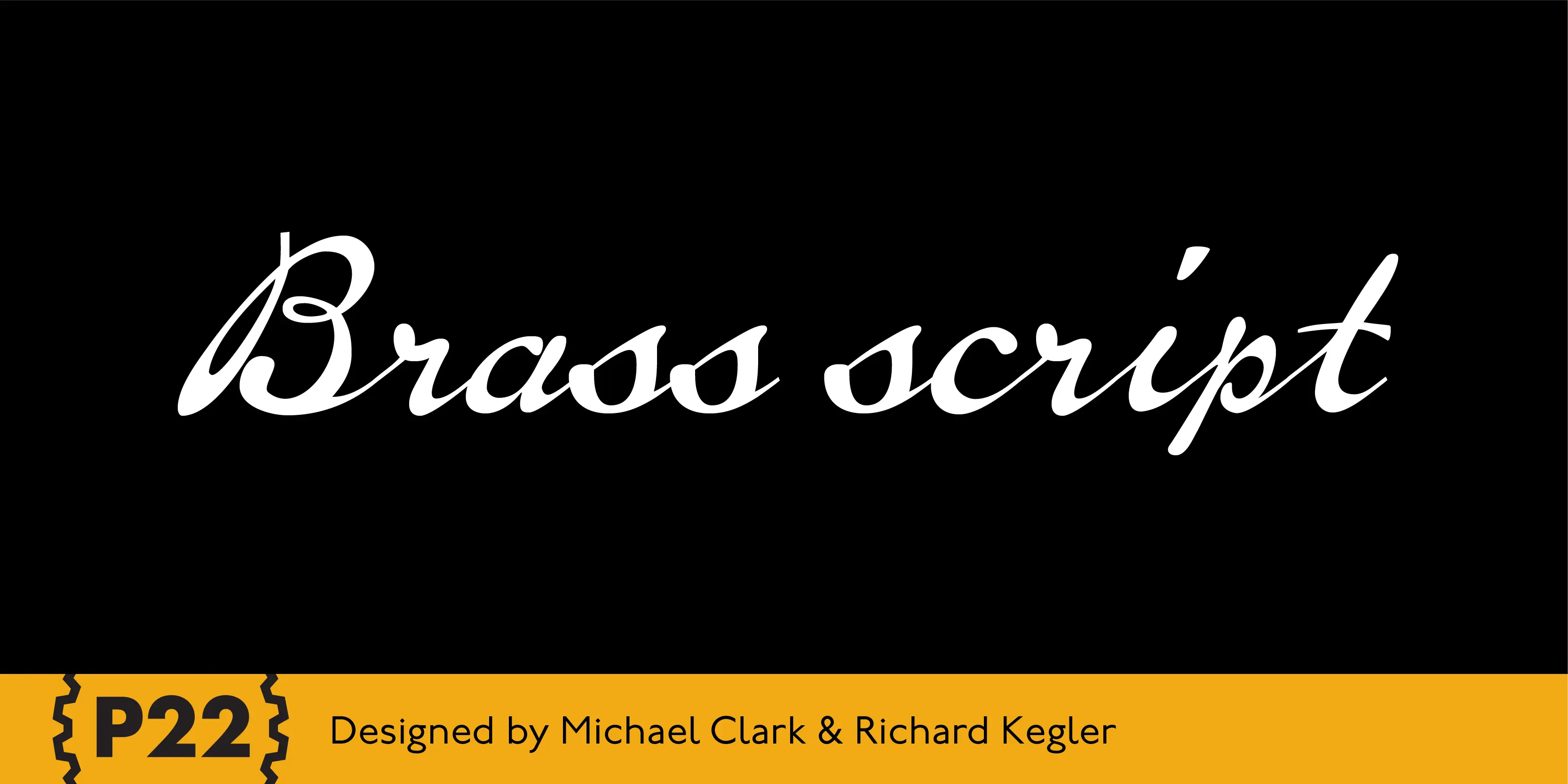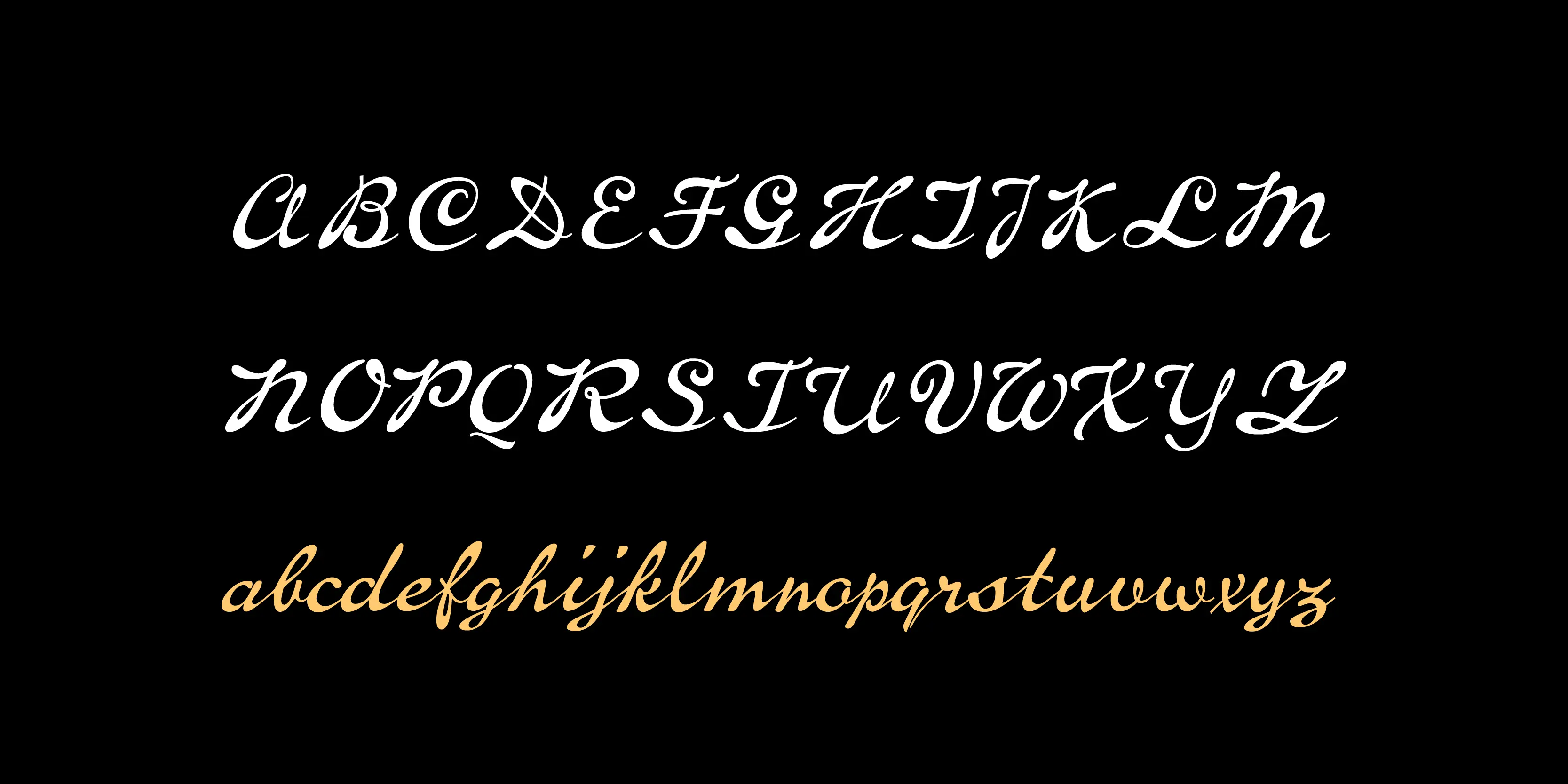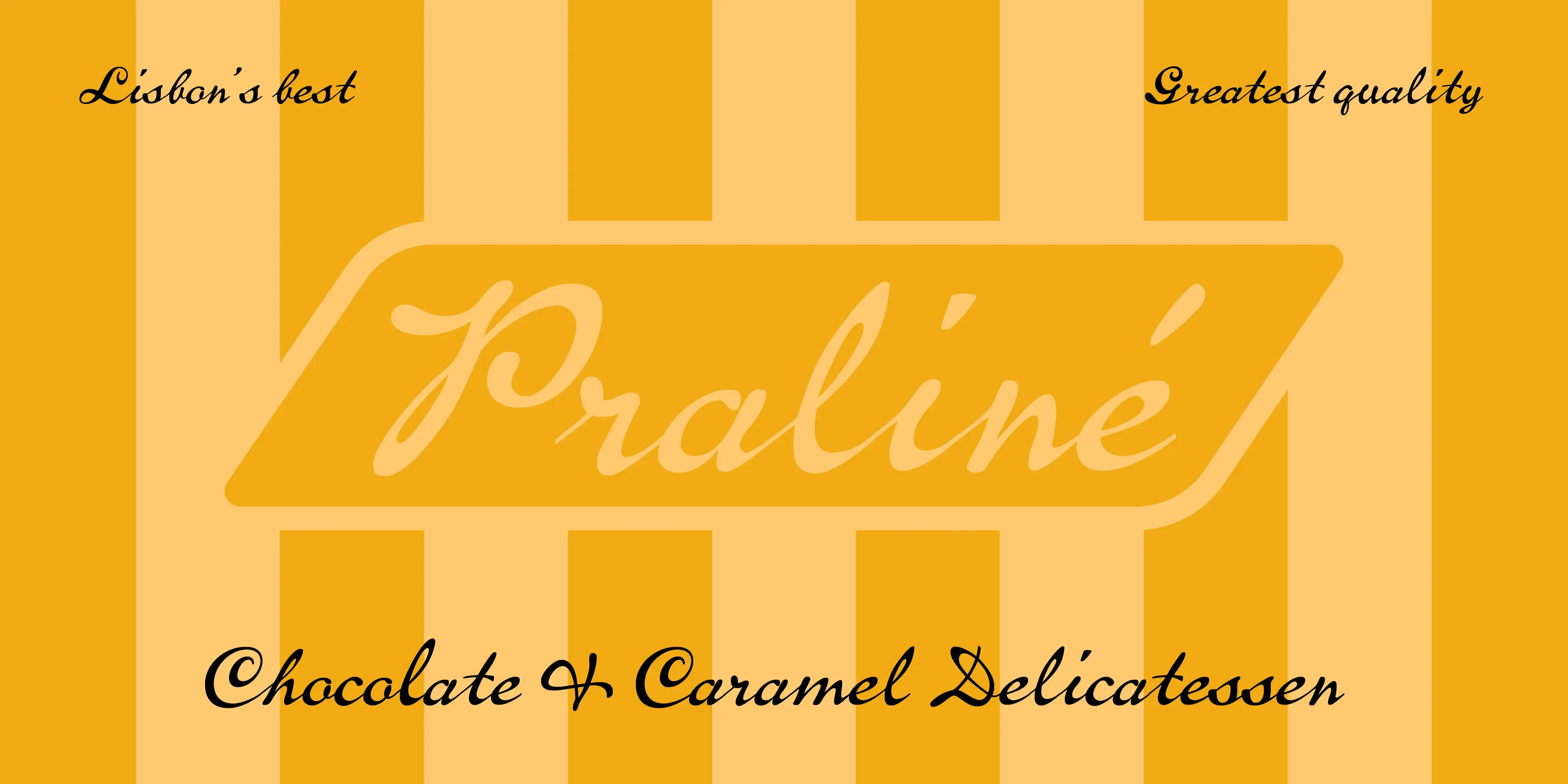
Brass Script Fonts
Brass Script
P22 Brass Script is a new font from an old source. This script font was discovered in a booklet from Dornemann & Co. of Magdeburg Germany, circa 1910. The book was titled Messingschriften fur handvergoldung, which roughly translates to “Brass types for Script foil stamping.” The mini catalog called this type simply “Script.” It has not been previously digitized or seen in standard metal type form. The antique specimen book featured most of the characters needed for a full alphabet, but a number of letters were not shown. Since no other examples of this style could be found, P22 enlisted the assistance of master calligrapher Michael Clark to draw the missing characters in the same style as the original. The style is very loosely based on the secretarial hands and reminiscent of “French Script” with a very early 20th century, pre-modern feel. It has an unusual flow that is neither too casual nor too formal. The font would be useful for wedding invitations or packaging and advertising. P22 Brass Script Pro features include: automatic ligatures for common pairs such as ll, tt, qu and a variety of f ligatures, full CE language support including Turkish and Romanian and a variety of swash underscores for different length words that can be added manually in OpenType ready applications with the glyph palette or with the contextual alternates. The length of the word will automatically select the best length of swash for the work.